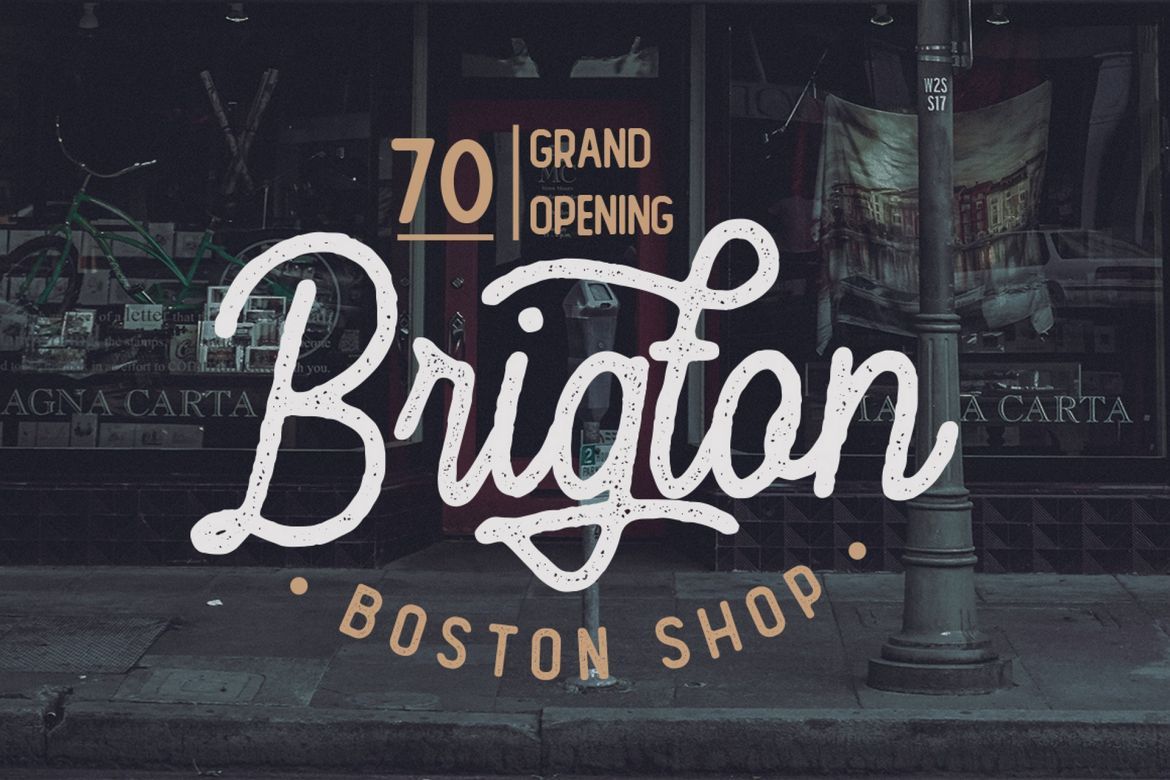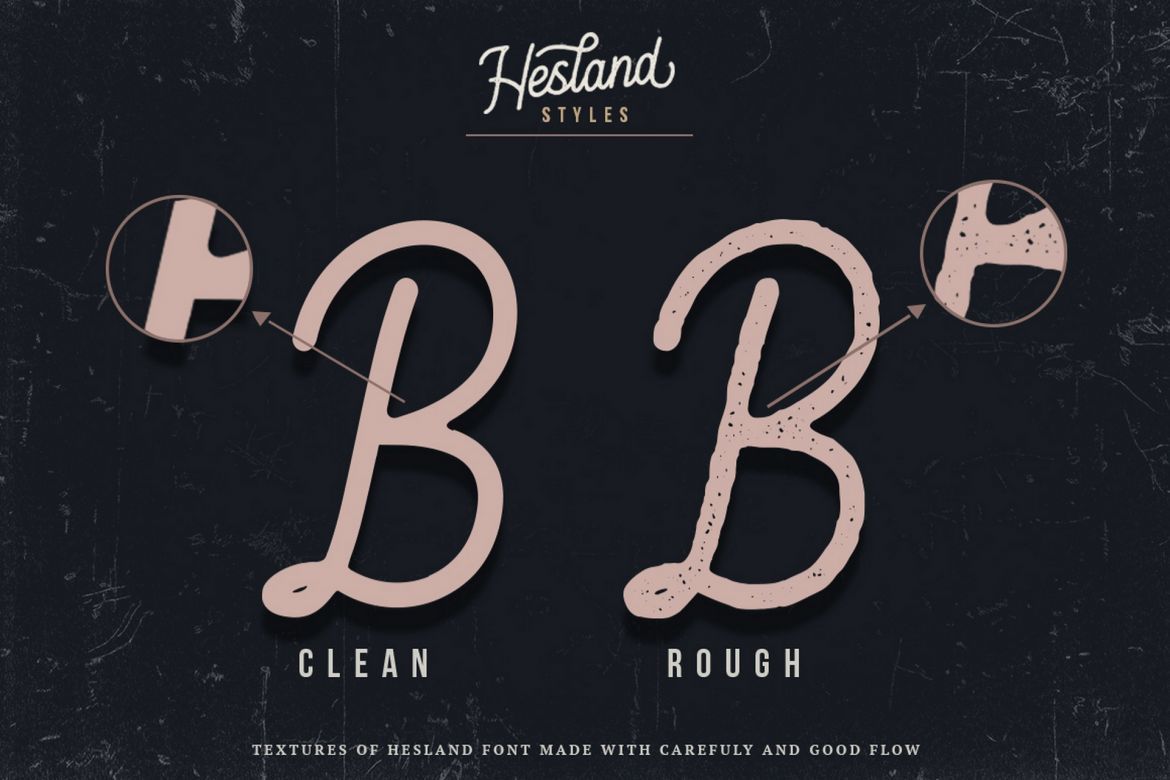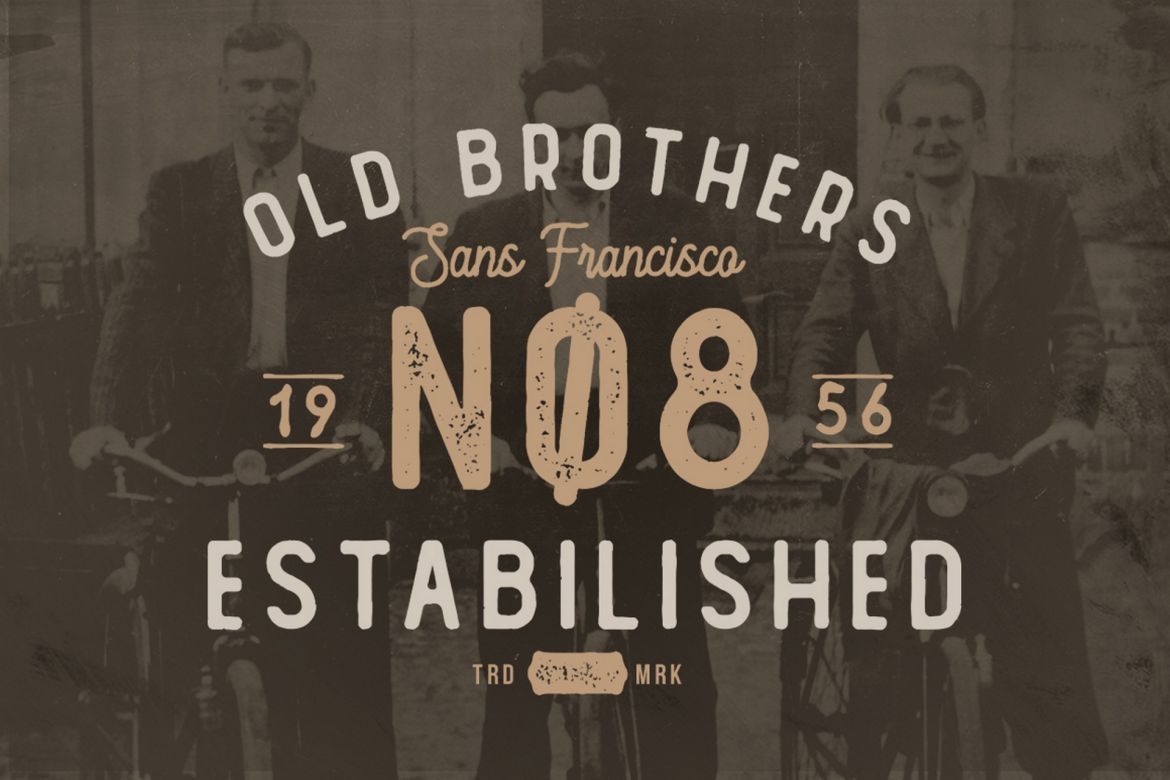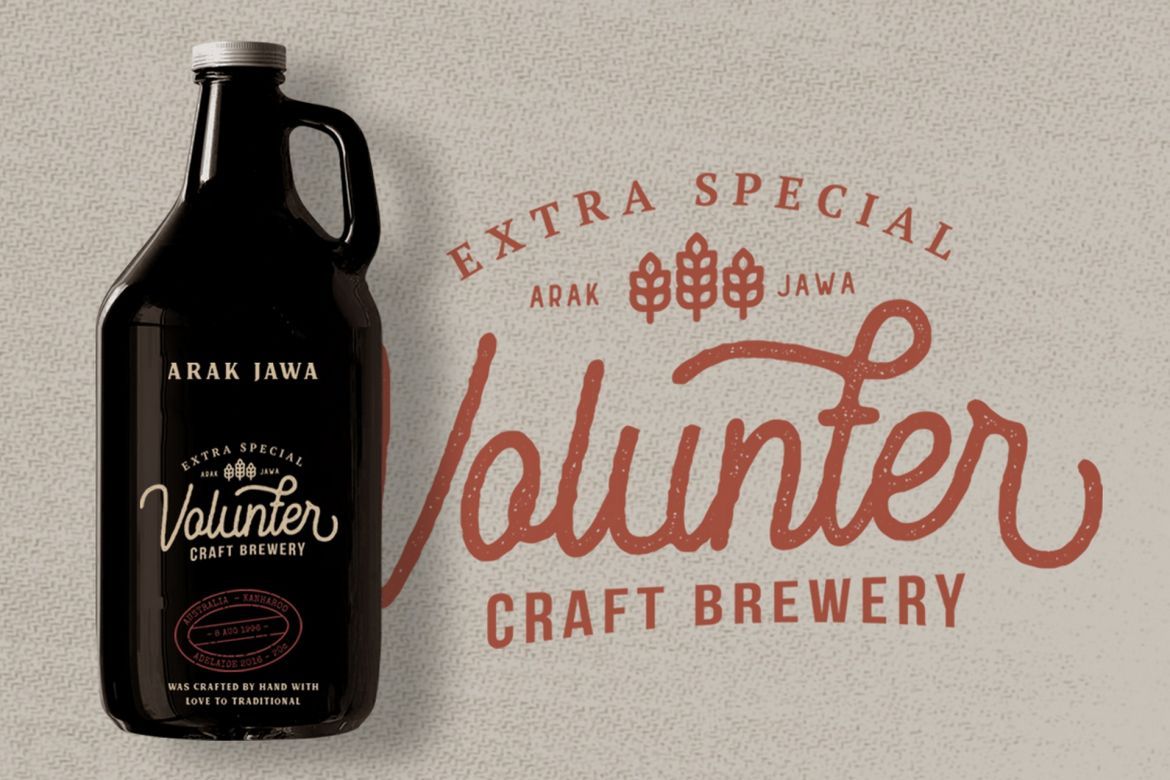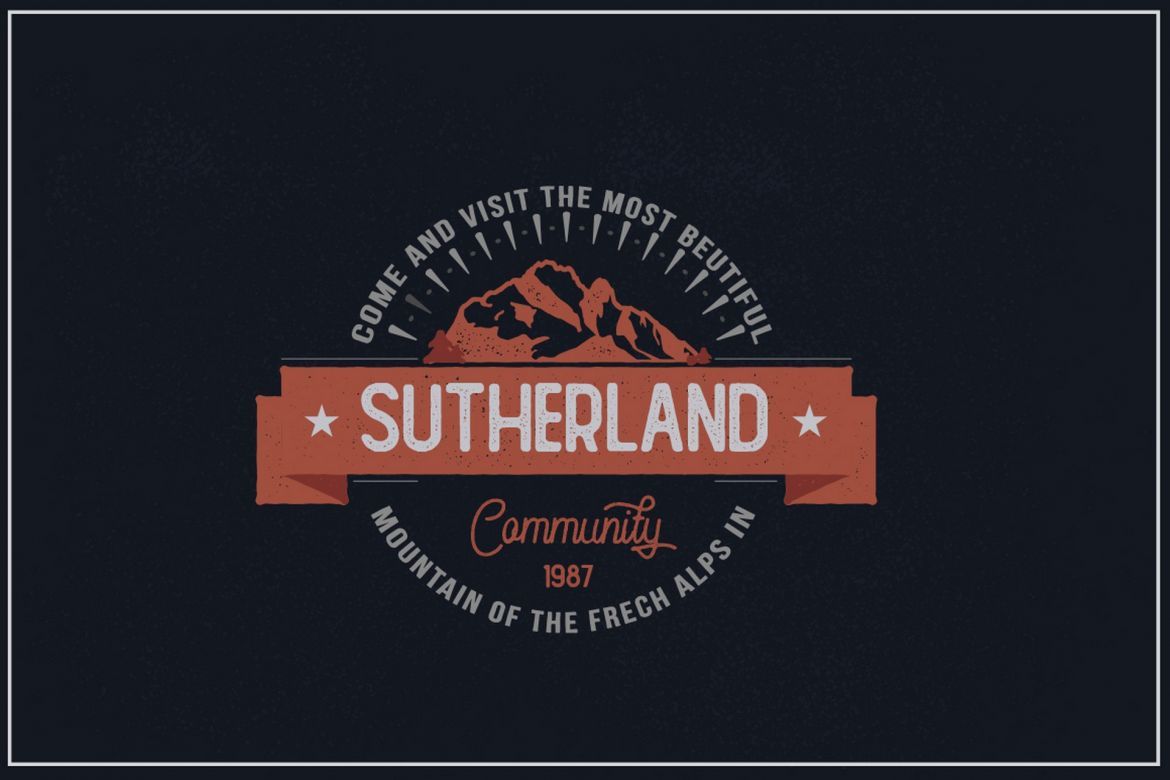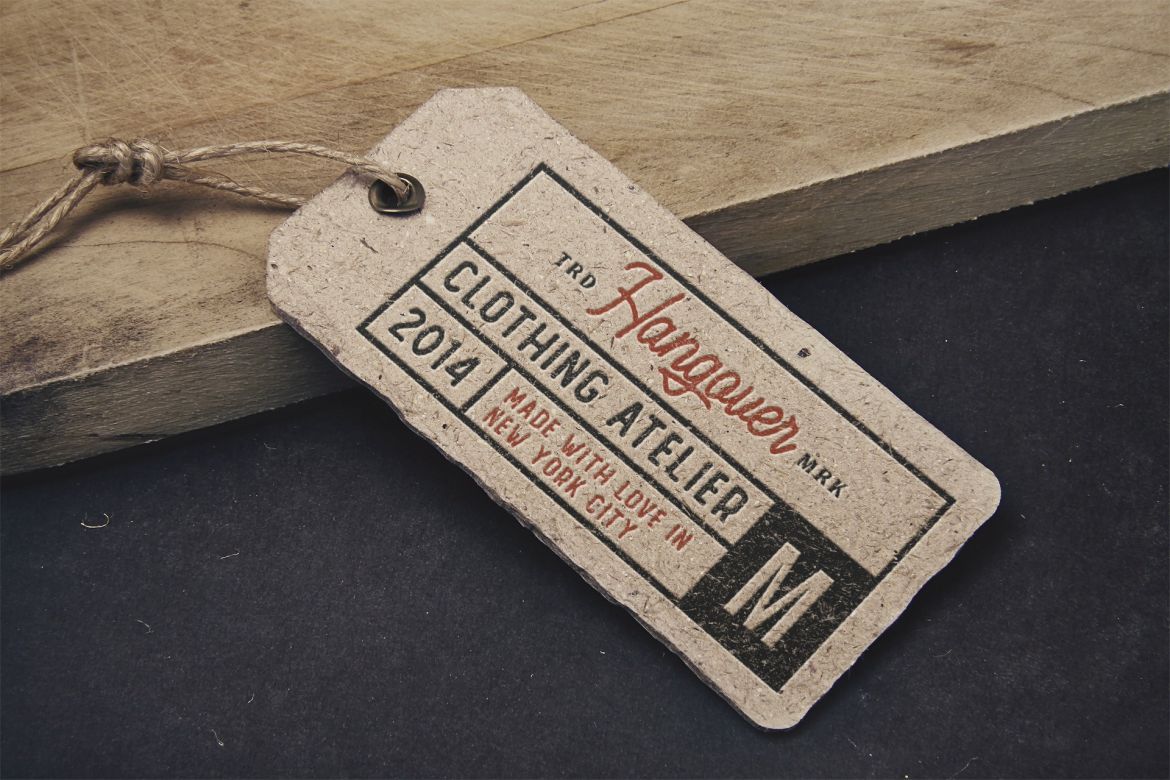
Hesland - Vintage Script Font
Hesland Vintage Font Duo inspired by the vintage old american which has two styles, Clean and Stamped. come with script and sans serif this font.
This font has a vintage feel with styles stamp on each letter. great for Logotype, Branding Design, Vintage Logo Design, Digital Lettering Arts, Retro, Vintage lettering, and any vintage design needs.